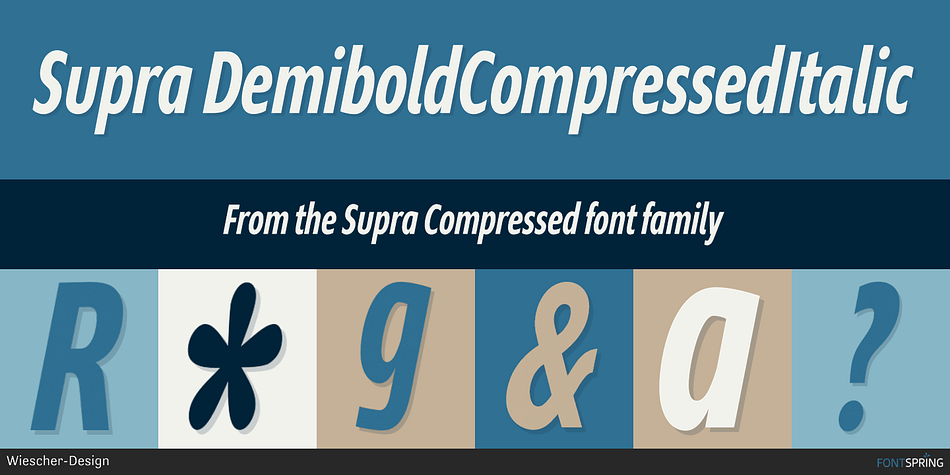
Supra DemiboldCompressedItalic
Supra Compressed is a sans serif font family. This typeface has fifteen styles and was published by Wiescher-Design.
»Supra-compressed« – designed by Gert Wiescher in 2013 – is the extreme version of this family.
»Supra-compressed« – designed by Gert Wiescher in 2013 – is the extreme version of this family. But despite it being very slim it is still – because of its openness – a very readable font.
The light and normal weights and the dominant x-height with its high ascenders make for easy reading of long copy. The heavy and x-light weights are great for elegant headlines.
Supra is an OpenType family for professional typography with an extended character set of over 700 glyphs. It supports more than 40 Central- and Eastern-European as well as many Western languages. Ligatures, different figures, fractions, currency symbols and smallcaps can be found in all cuts. with each other.